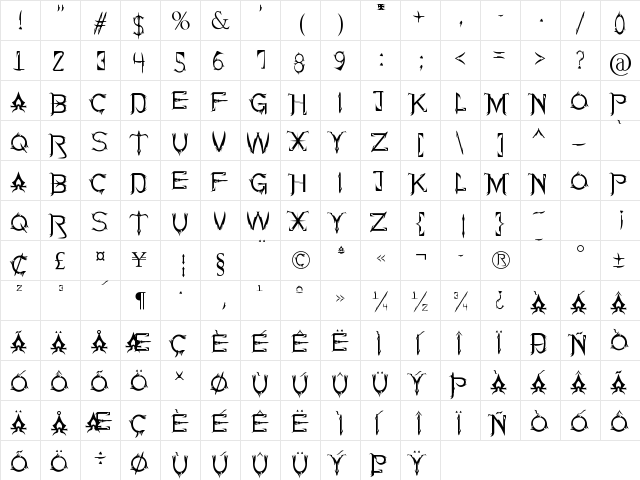
Soul Of Holitter Regular
| Designer | Biffe |
Design Context for Soul Of Holitter Typeface
Soul Of Holitter is a composed and adaptable typeface that performs quietly and consistently across a wide range of design contexts.